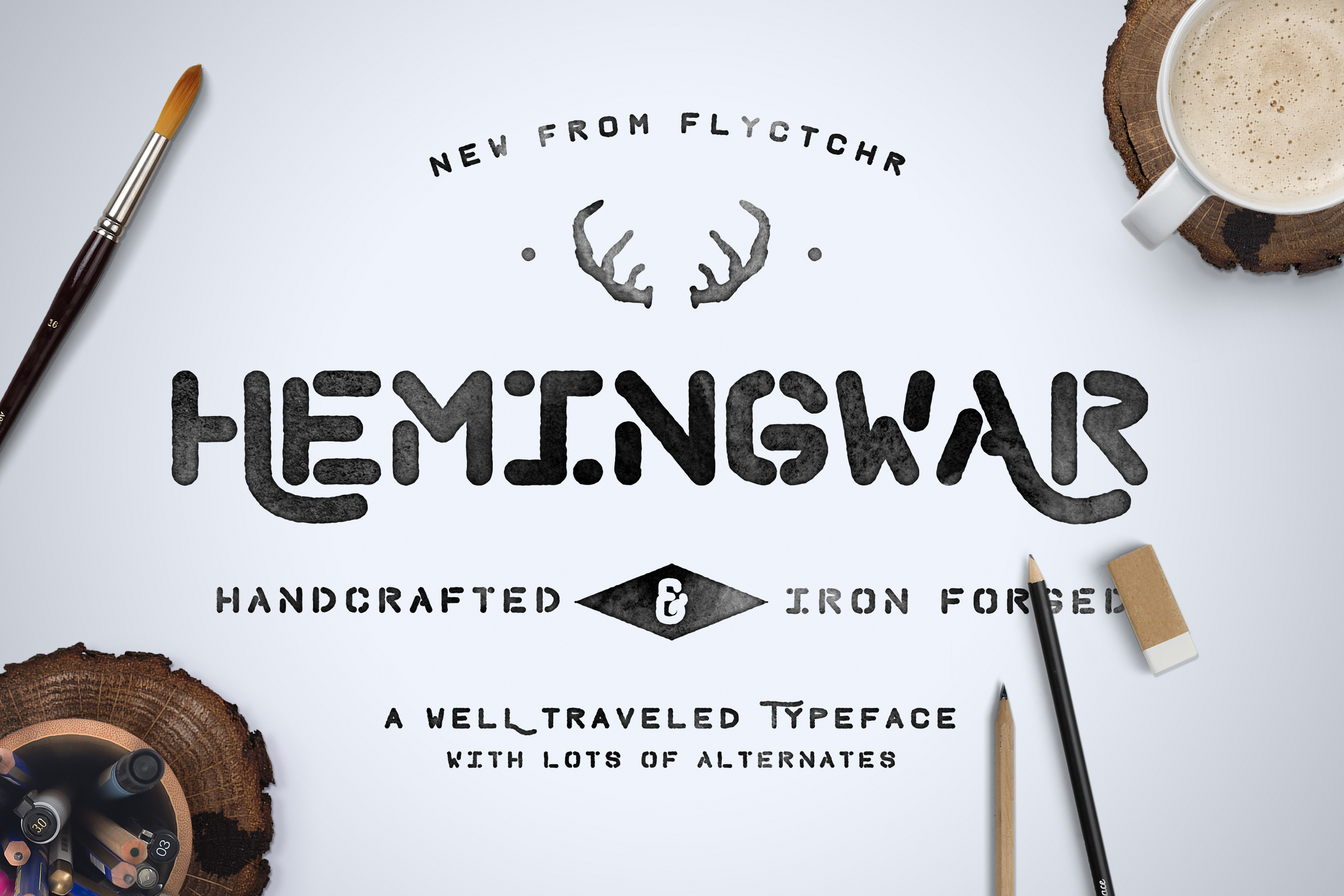
Hemingwar Font + Extras
Hemingwar is a sturdy hand-lettered font family inspired by Hemingway's adventurous life that started from humble beginnings. It's rounded corners give it a warm, approachable aesthetic. Perfect for badges, logos and type based design, this font looks great on curved paths or as an accent piece to that beautiful script font you love to use. Keep it classic or add some flair to your project with one of the 9 alternate letters included!